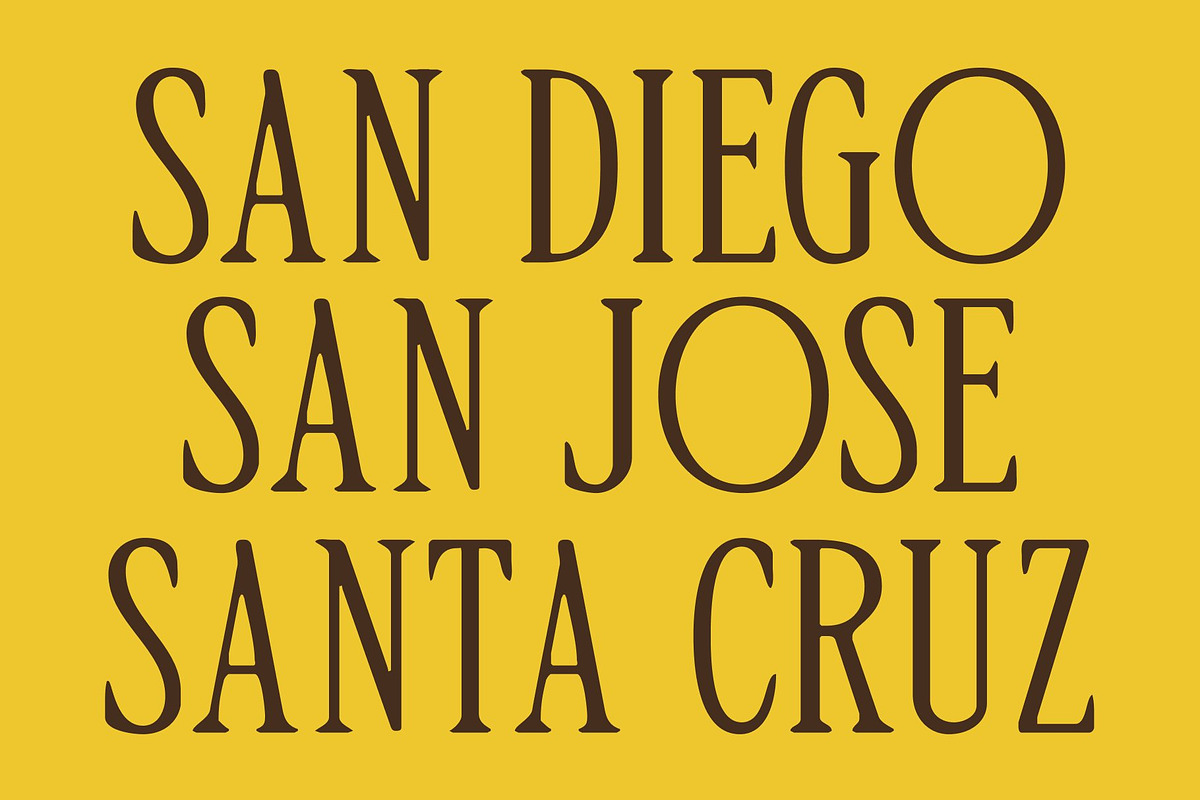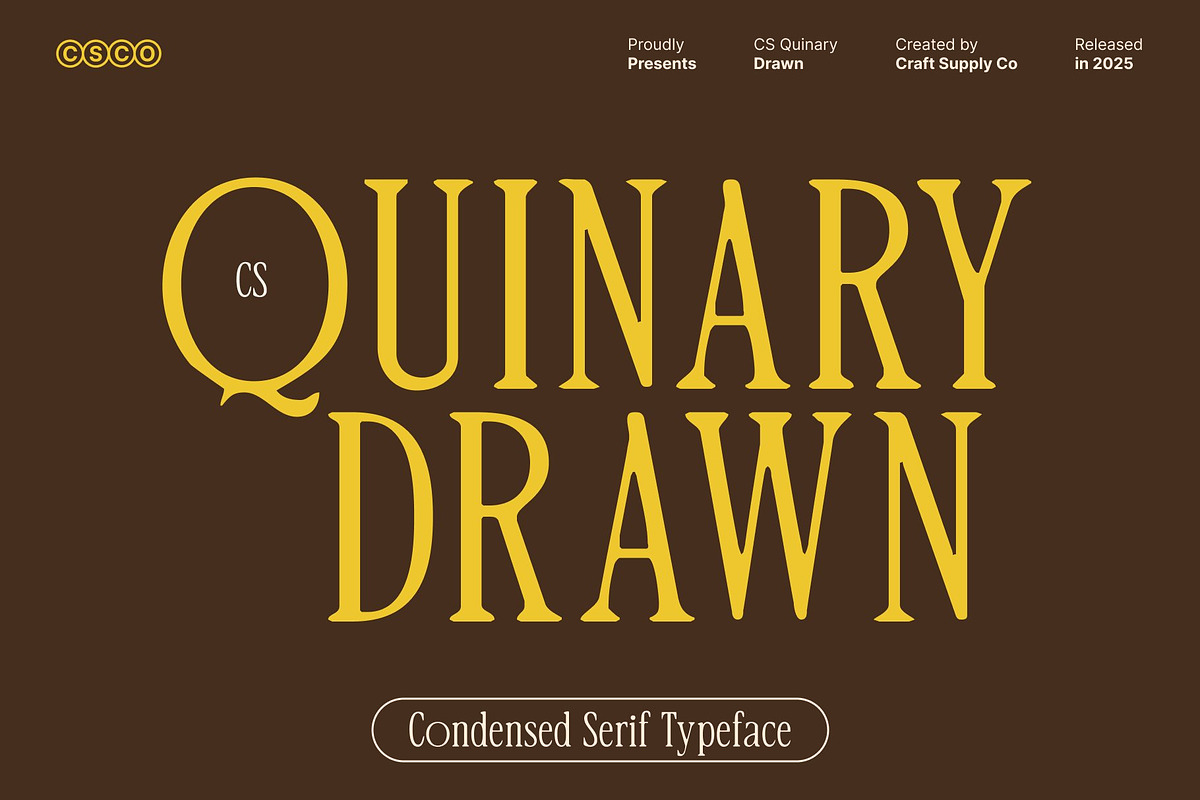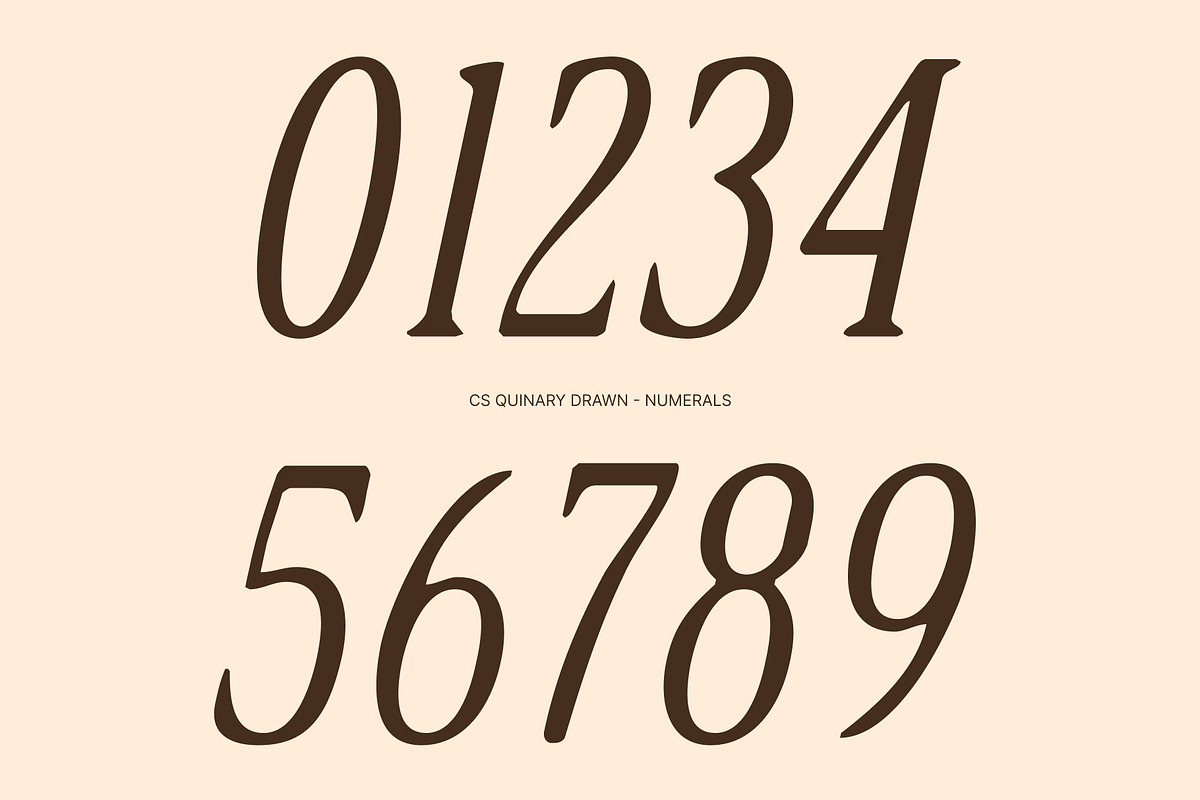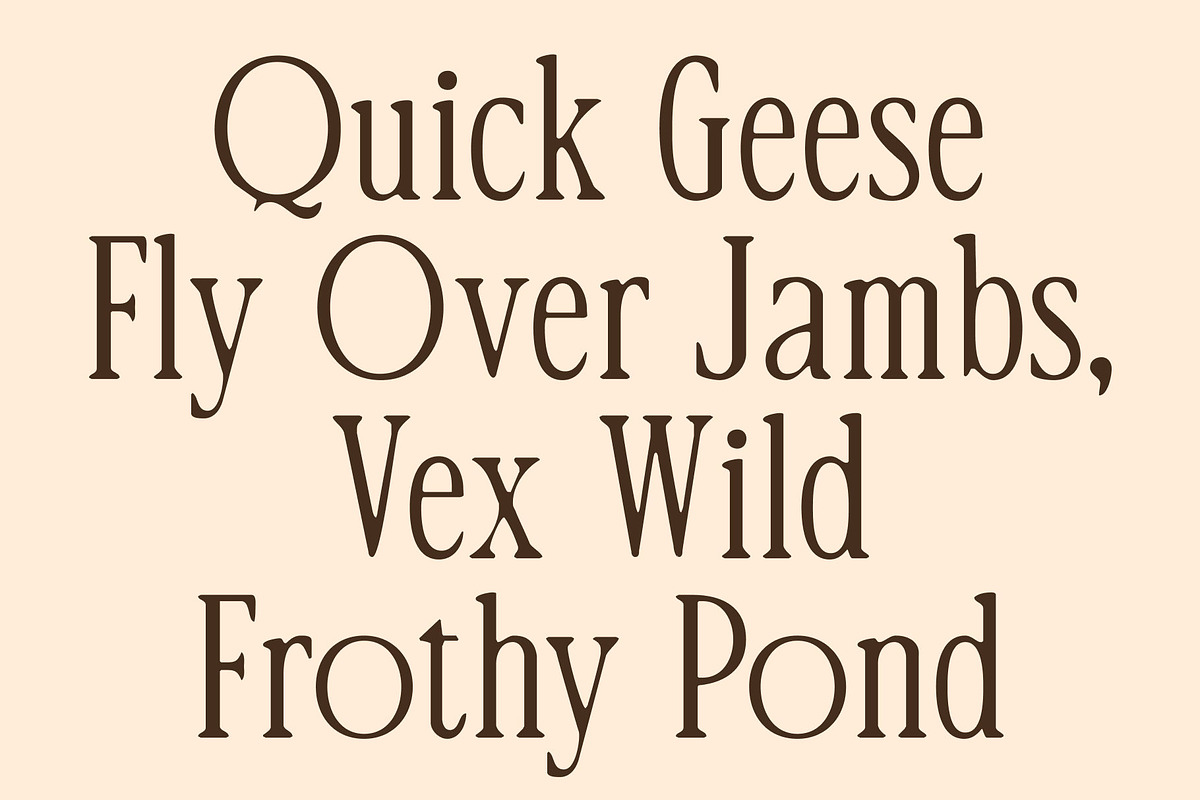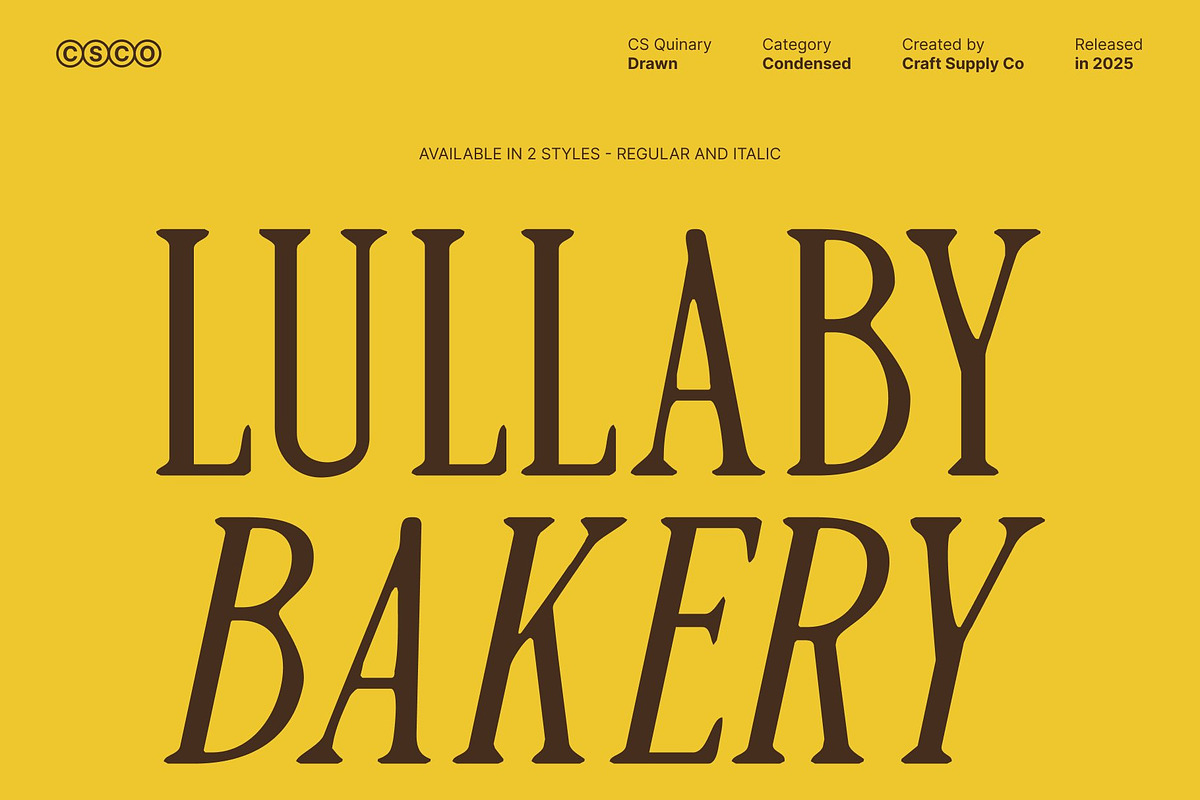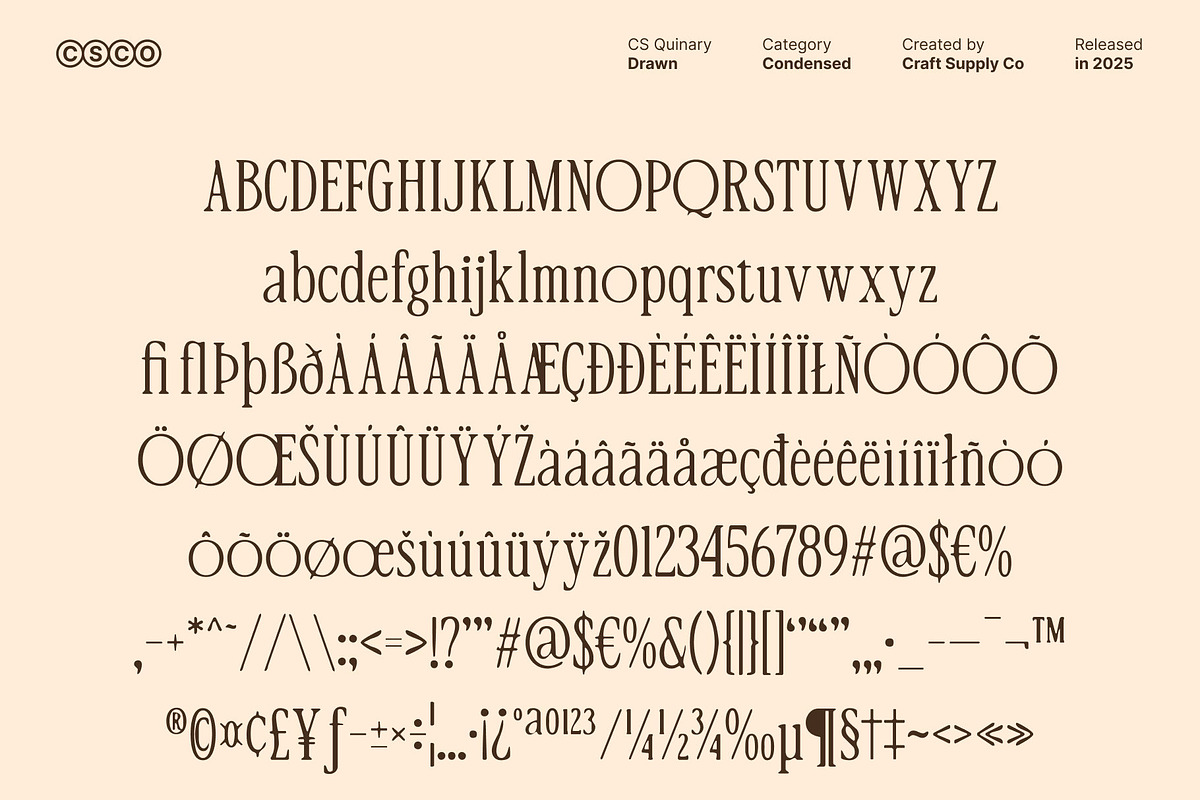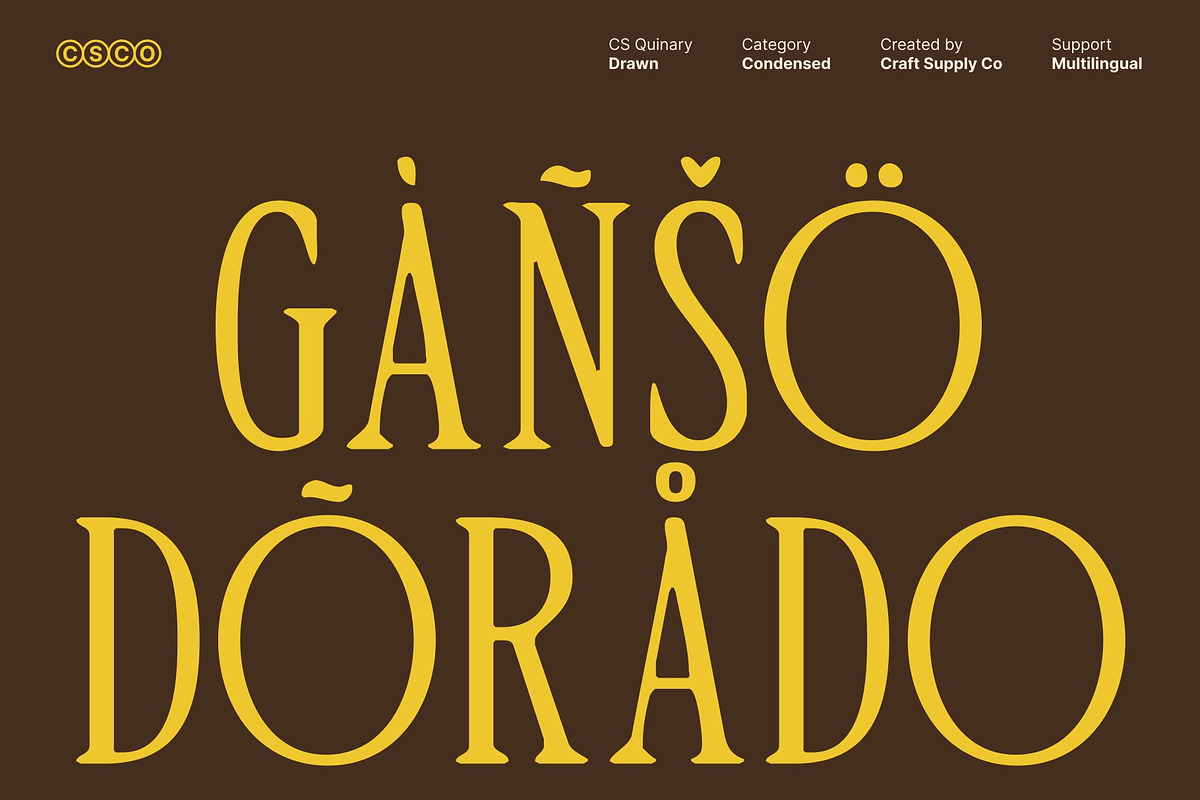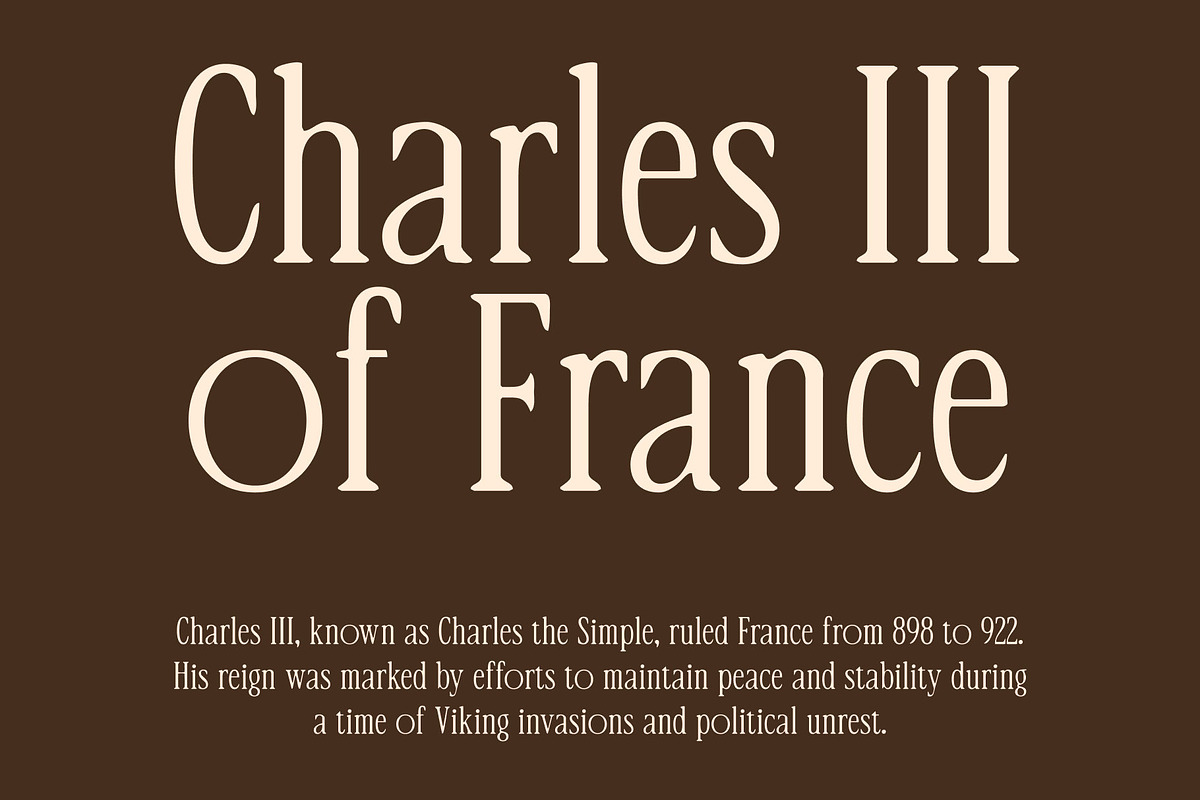
CS Quinary Drawn
CS Quinary Drawn – Condensed Serif with Modern Elegance
Graceful Structure with Hand-Drawn Character This is a modern serif font that combines sleek, condensed letterforms with subtle hand-drawn details. Its elegant structure is enhanced by the drawn texture, giving each character a refined, artisanal quality. This fusion of precision and handcrafted charm creates a typeface that feels both sophisticated and contemporary.
Condensed Design for Space-Efficient Impact Featuring narrow widths, this font maximizes vertical space while maintaining readability. Its condensed proportions are ideal for editorial layouts, headlines, and branding projects where space is limited but visual impact is essential. The font’s upright, structured forms convey clarity and modern elegance.
Luxury and Professionalism Combined The fine serifs and minimalist detailing of this font communicate a sense of luxury and professionalism. Its balanced design makes it perfect for fashion branding, elegant packaging, and corporate identities. The subtle drawn effect adds personality while maintaining a polished, high-end appearance.
Versatile for Modern Editorial and Branding This font excels across digital and print applications, offering both sophistication and functionality. Whether used for magazines, premium brand identities, or marketing materials, this font delivers elegance, precision, and a unique handcrafted charm that elevates any design project.